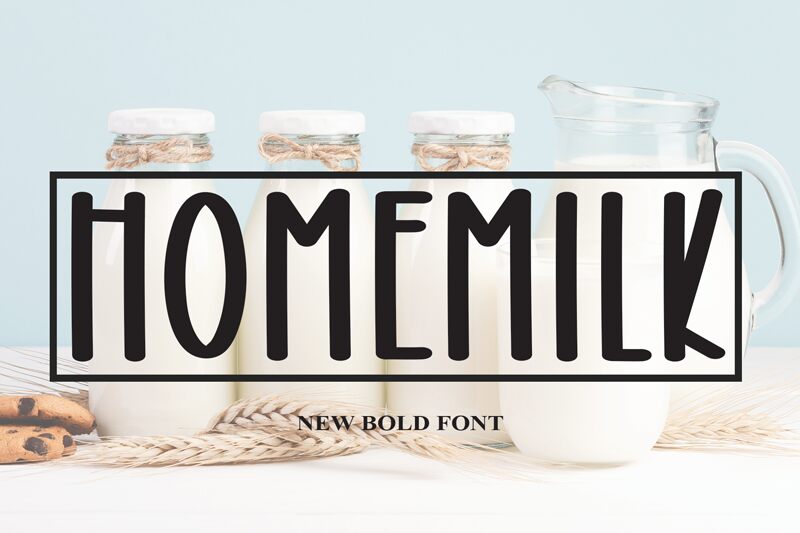
Homemilk
Homemilk, a charming creation by Scratchones, is a condensed handwritten font that adds a playful touch to any project. With its block letters and all caps style, this font brings a unique and eye-catching appeal.
Perfect for children's books, greeting cards, or even logo design, Homemilk effortlessly captures attention with its whimsical yet sophisticated look. Let your creativity flow as you experiment with this versatile typeface in various projects – from packaging designs to social media graphics – Homemilk will surely leave a lasting impression.